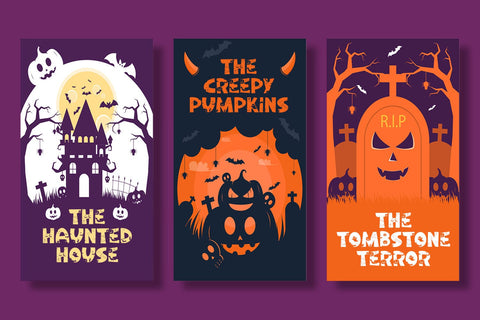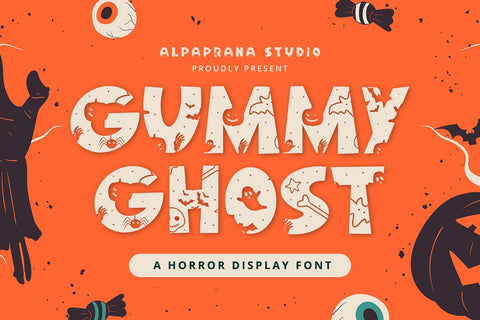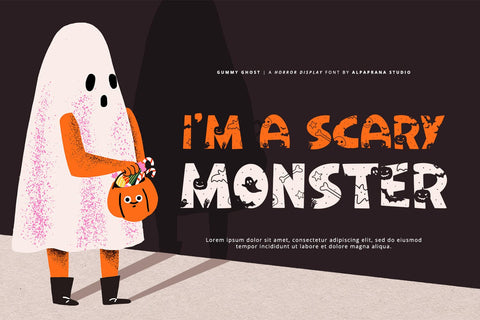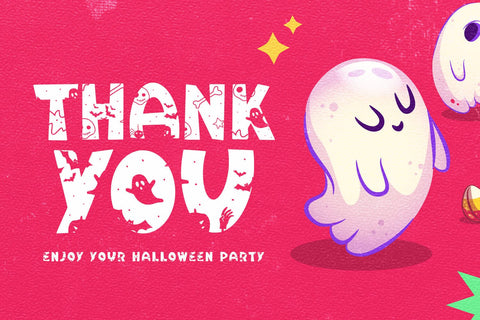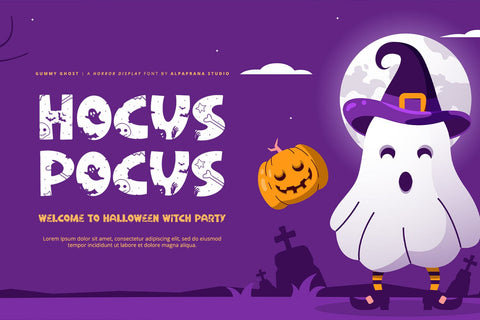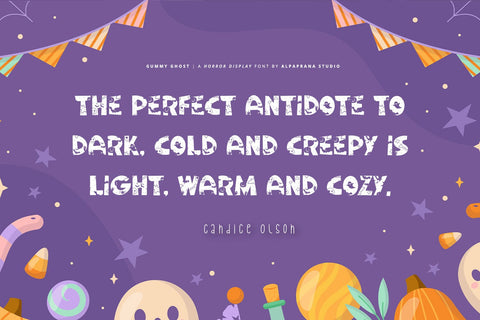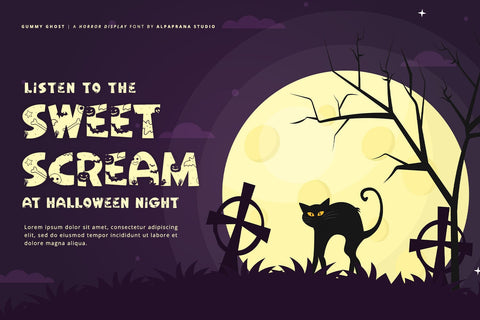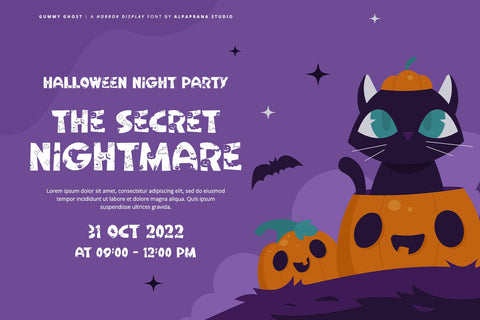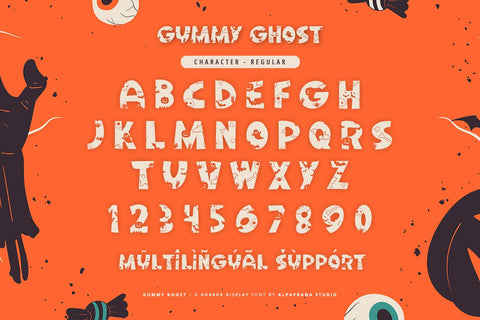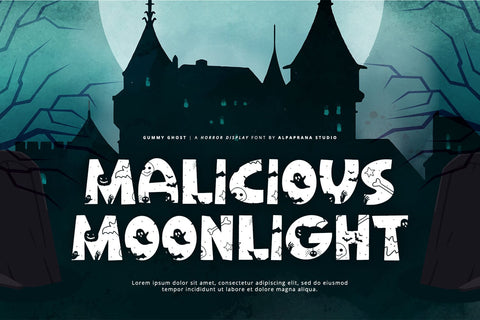
Gummy Ghost - Display Font
Gummy Ghost is a Display horror font with cute feels. It will be perfectly used for Branding, Logo Design, Lettering, Logotype, Clothing, Poster, magazine, packaging, posters, shopping bags, t-shirts, book covers, photography, special events and other design project.